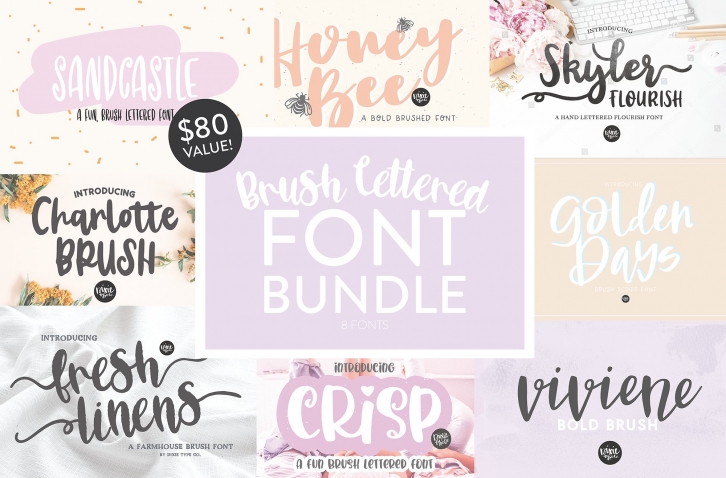
These fonts were all hand-lettered with a brush and ink, or iPad Pro.
The 8 fonts included are:
SANDCASTLE CRISP SKYLER FLOURISH HONEY BEE VIVIENE FRESH LINENS GOLDEN DAYS CHARLOTTE BRUSH